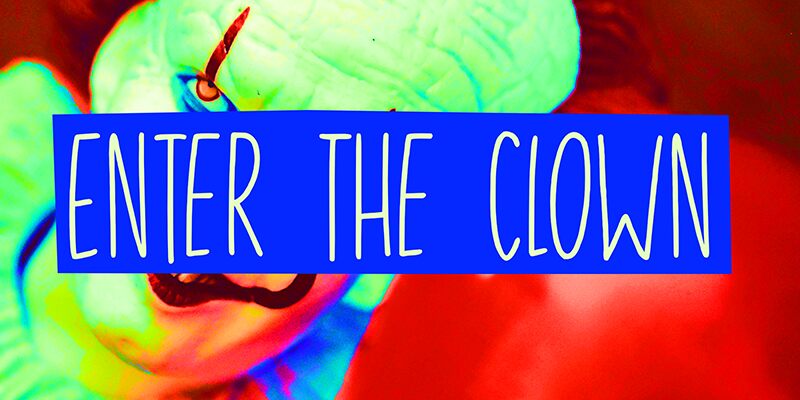
Enter The Clown DEMO Regular
Enter The Clown font is a handwritten free font, designed by David Kirkhoff. The clean, hand-drawn appearance places the letters all on one linear baseline where they spread like children playing in a straight line. The whimsical design has both casualness to it and an organic feel that invites viewers to come closer.
Informal branding projects, slideshows, comics, mobile apps UI/UX, and titles for modern magazines; use this fun font style in creative advertisements including products for kids or those serving as entertainment content across platforms.